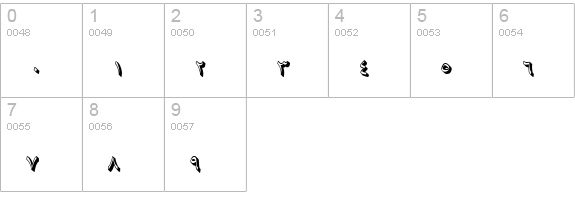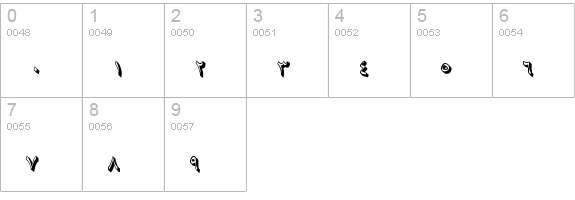
B Aseman Font Details
B Aseman font is a stunning display typeface that captures attention with its elegant and modern design. Its sleek lines and sophisticated curves make it perfect for a wide range of design projects, from branding to editorial design. The font exudes a sense of luxury and sophistication, making it ideal for high-end products and services. What sets B Aseman font apart is not only its striking visual appeal but also the fact that it is available for free download at FontsMarket.com. This means that you can elevate your designs with this premium font without any cost, making it a valuable addition to your font collection. Whether you're working on a logo, poster, website, or any other design project, B Aseman font will bring a touch of class and sophistication to your work. Download it today and let your creativity soar with this exquisite typeface.